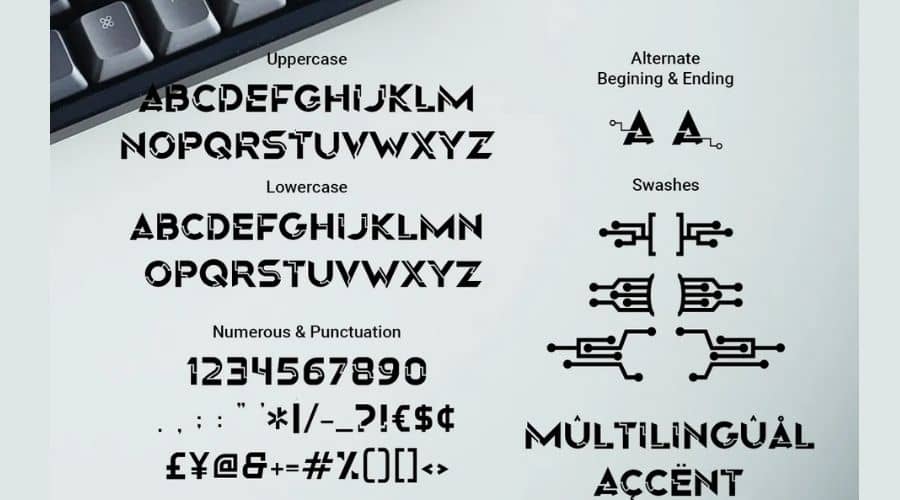
Origin Tech Font
Introducing, the new Origin Tech! a modern Display Typeface. The Font was created with modern project concepts in mind, on March 17, 2021, ronin design designed and launched the Font.
This Font is perfect for use in-game/app design, logo design, posters, and advertising, among other things. Origin Tech Font is also ideal for logotype, particularly in the fields of technology, construction, automobile, and export. The stunning display font named Origin Tech Font also used for poster design, web design, branding, graphics, badges, and other projects. The Font is primarily perfect for all types of tech-related projects.